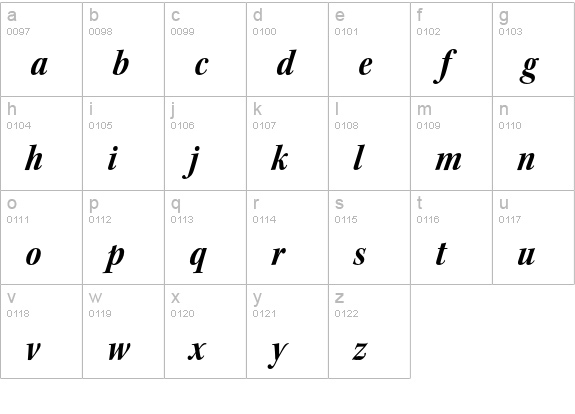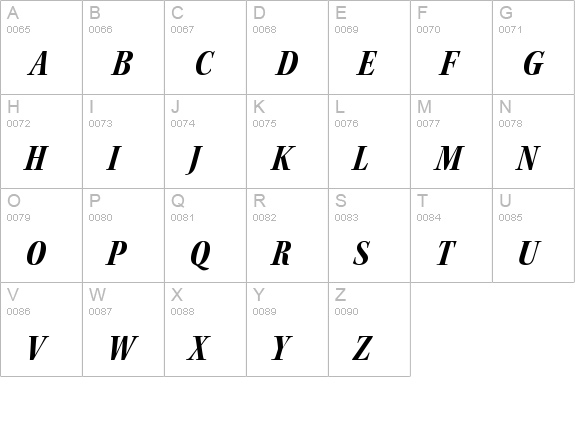
Kepler Std Bold Condensed Italic Subhead Font Details
Kepler Std Bold Condensed Italic Subhead is a strong, high-contrast, condensed-width, italic variant in the Kepler typeface family \xE2\x80\x94 well suited to headlines, attention-grabbing titles, and strong calls-to-action.
Kepler Std Bold Condensed Italic Subhead is a stunning and versatile font that adds a touch of elegance and sophistication to any design project. With its bold and condensed letterforms, this font commands attention and creates a strong visual impact. The italicized slant of Kepler Std Bold Condensed Italic Subhead adds a sense of movement and dynamism, making it perfect for subheadings, titles, and captions. Whether you're designing a magazine layout, creating a logo, or working on a website, this font will effortlessly elevate your typography. What sets Kepler Std Bold Condensed Italic Subhead apart is not only its aesthetic appeal but also its accessibility. This font is freely available to download at FontsMarket.com, allowing designers and creatives to easily incorporate it into their projects without any hassle. The versatility of Kepler Std Bold Condensed Italic Subhead is further enhanced by its legibility and readability. Even at smaller sizes, the boldness and condensed structure of the letters remain clear and easy to read. This makes it an ideal choice for conveying important information in a visually appealing manner. With its timeless appeal and modern flair, Kepler Std Bold Condensed Italic Subhead is a must-have font for any designer seeking a powerful and eye-catching typography solution. Download this font for free at FontsMarket.com and unlock its potential to elevate your designs to new heights.